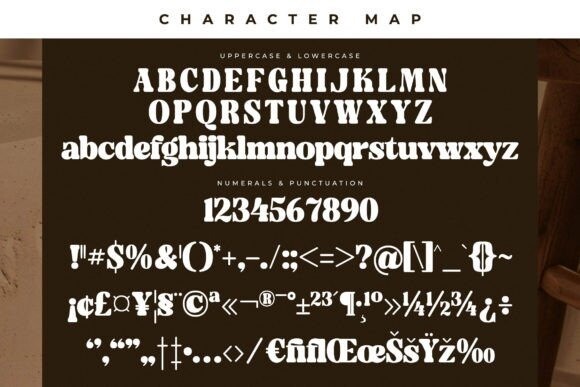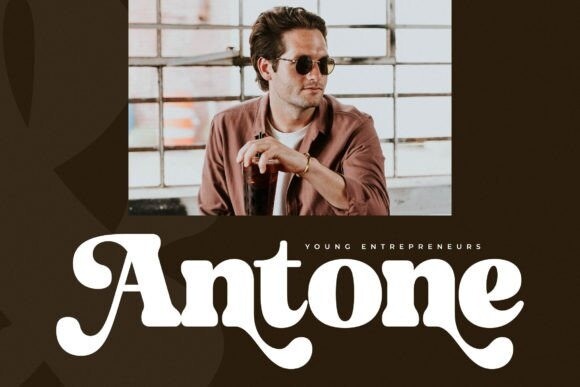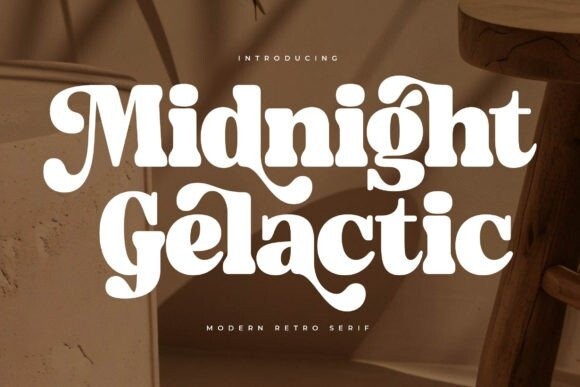
Midnight Gelactic Font
Midnight Gelactic Font is a modern and stylish serif font that combines sophistication with contemporary flair. Its clean lines and balanced proportions make it perfect for editorial designs, branding, and logos. With its versatility and timeless appeal, Midnight Gelactic elevates any project with elegance and professionalism.